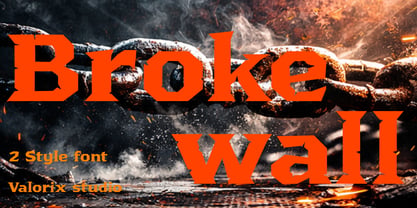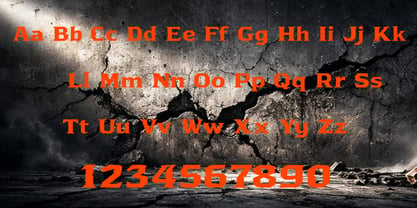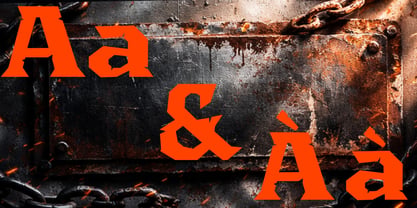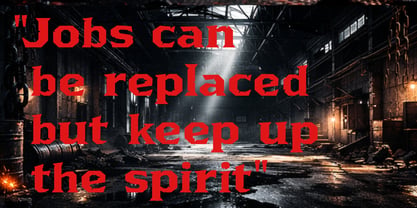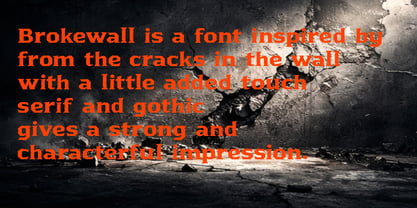
Brokewall
by Valorix Studio
The Brokewall Font Family was designed by Erick Rismawan Valorix and published by Valorix Studio. Brokewall contains 2 styles and family package options. More about this family
Brokewall Industrial Display Typeface Inspired by Cracked Concrete Brokewall is a bold industrial display typeface forged from the raw character of fractured walls and weathered urban surfaces. Inspired by the unpredictable geometry of cracked concrete, this typeface captures the tension between structure and destruction, strength and decay. Every letterform reflects the visual language of broken cement, chipped edges, and architectural stress lines. The shapes feel solid and grounded, yet carry subtle irregularities that echo the organic patterns found in cracked walls. This balance gives Brokewall its distinctive presence: powerful, assertive, and unapologetically bold. Designed primarily as a display typeface, Brokewall performs best at large sizes where its character can fully emerge. It commands attention without relying on excessive ornamentation, making it ideal for impactful visual statements. Design Concept & Inspiration The idea behind Brokewall began with close observation of cracked concrete surfaces in urban environments. When walls fracture, they reveal unexpected patterns. Lines split, tension builds, and rigid structures transform into expressive compositions. Rather than imitating damage literally, Brokewall translates that visual tension into typographic form. The letterforms maintain strong architectural foundations, but incorporate subtle weight shifts and structural firmness reminiscent of reinforced concrete under pressure. This approach creates a typeface that feels industrial, grounded, and resilient. It embodies endurance, strength, and raw authenticity. Key Characteristics • Strong, bold display presence • Industrial and urban personality • Clean but powerful letter construction • Suitable for high impact headlines • Balanced uppercase and lowercase forms • Versatile numeric and punctuation support Ideal For Brokewall is particularly well suited for: • Posters and promotional graphics • Streetwear branding • Industrial themed designs • Album covers • Event headlines • Logo and badge designs • Editorial display titles Tone & Personality Brokewall speaks with confidence. It feels solid, grounded, and structural. It does not whisper; it stands firm like reinforced concrete. Its personality aligns with brands that value strength, authenticity, and bold visual identity.